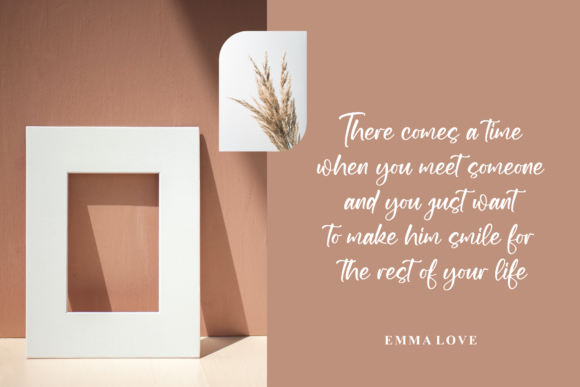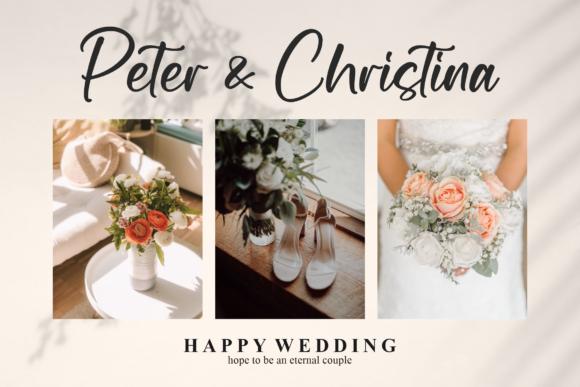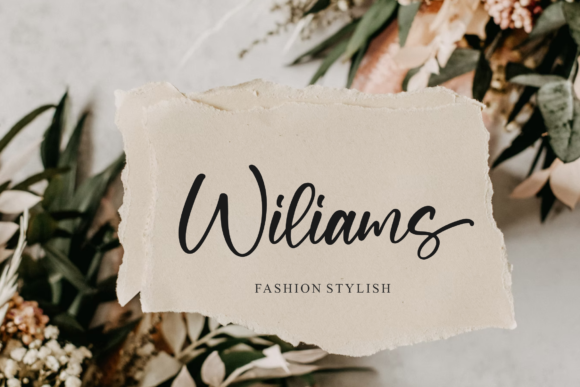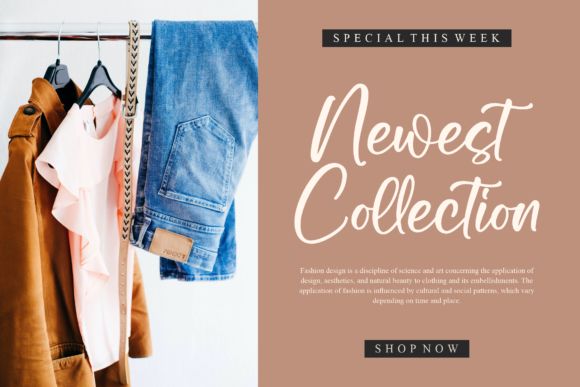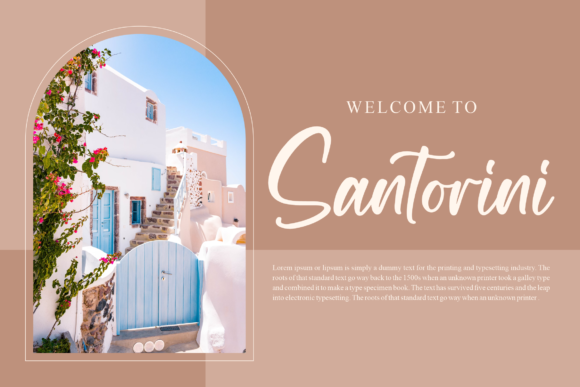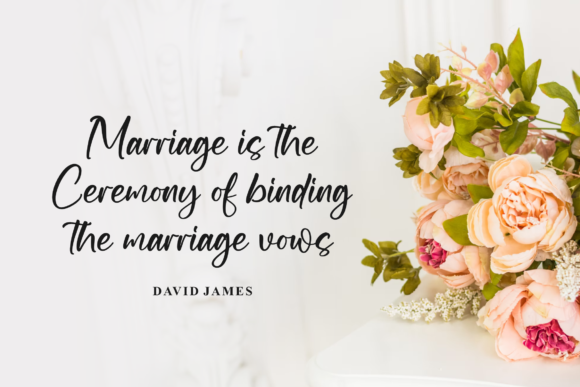
Introducing Diarytale Font: Elevate Your Designs with Elegance and Sophistication
In the world of design, typography plays a crucial role in conveying the tone and aesthetic of a project. For designers and crafters seeking to add a touch of elegance and sophistication to their work, the Diarytale Font is an exceptional choice. This free-flowing script font is meticulously crafted to enhance various design materials, including packaging products, invitation cards, flyers, mockups, event posters, and more.
What Makes Diarytale Font Stand Out?
Diarytale Font boasts a beautiful and balanced character set that seamlessly integrates with a wide range of design pools. Its unique, flowing script style is not only visually appealing but also highly versatile, making it an ideal choice for projects that demand high-quality vibes. Whether you’re working on a luxury brand’s packaging, a wedding invitation, or a promotional poster, Diarytale Font brings a level of sophistication and refinement that’s hard to match.
Key Features of Diarytale Font
- Free-Flowing Script Style: Diarytale Font features a smooth, connected script style that adds a touch of elegance to any design.
- Balanced Character Set: Each character in the Diarytale Font is carefully crafted to ensure balance and harmony, making it perfect for large design projects.
- High-Quality Aesthetic: The font is designed to provide a high-end look, suitable for projects that require a premium feel.
- Versatile: From packaging and invitations to flyers and posters, Diarytale Font adapts effortlessly to various design needs.
Applications of Diarytale Font
The versatility of Diarytale Font makes it suitable for a myriad of design applications. Here are some of the key areas where this font truly shines:
- Packaging Design: Add a luxurious touch to product packaging and make your brand stand out on store shelves.
- Invitation Cards: Create stunning wedding invitations, birthday cards, or any other type of event invitation that exudes class and sophistication.
- Flyers and Brochures: Elevate your promotional materials with a font that captures attention and conveys a sense of premium quality.
- Mockups: Use Diarytale Font in your design mockups to give clients a clear vision of the final product’s aesthetic.
- Event Posters: Design eye-catching posters for events, concerts, or exhibitions that reflect a high level of sophistication.
Diarytale Font is a remarkable addition to any designer’s toolkit, offering a perfect blend of elegance, versatility, and sophistication. Its free-flowing script style and balanced character set make it an excellent choice for a wide range of design projects. By incorporating Diarytale Font into your work, you can elevate your designs, convey a sense of luxury, and leave a lasting impression on your audience. So why wait? Explore the creative possibilities with Diarytale Font today and transform your designs into stunning works of art.